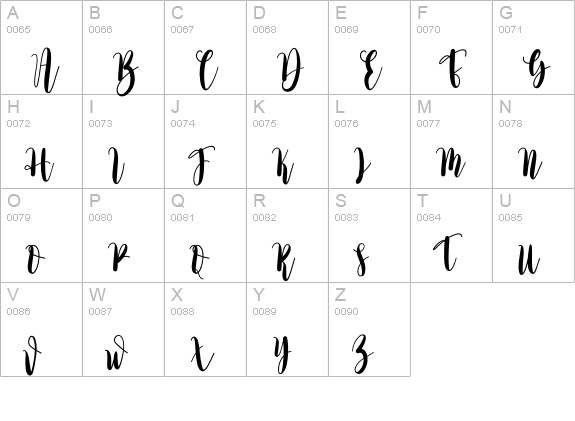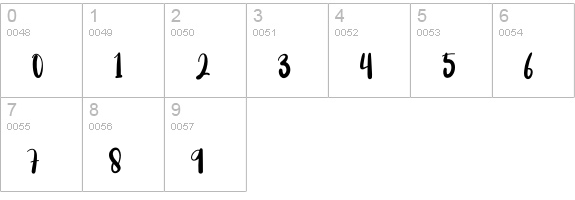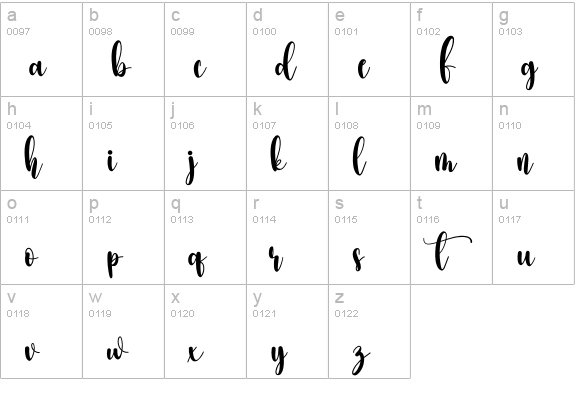
Amellinda Font Details
Introducing Amellinda font, a versatile and elegant typeface that exudes sophistication and charm. With its sleek lines and graceful curves, Amellinda is perfect for adding a touch of class to any design project. Whether you're creating a wedding invitation, branding materials, or signage, this font will elevate your work to a whole new level.
The beauty of Amellinda font lies in its versatility - it looks equally stunning in both bold headings and delicate body text. Its timeless appeal makes it a go-to choice for designers looking to make a statement with their typography.